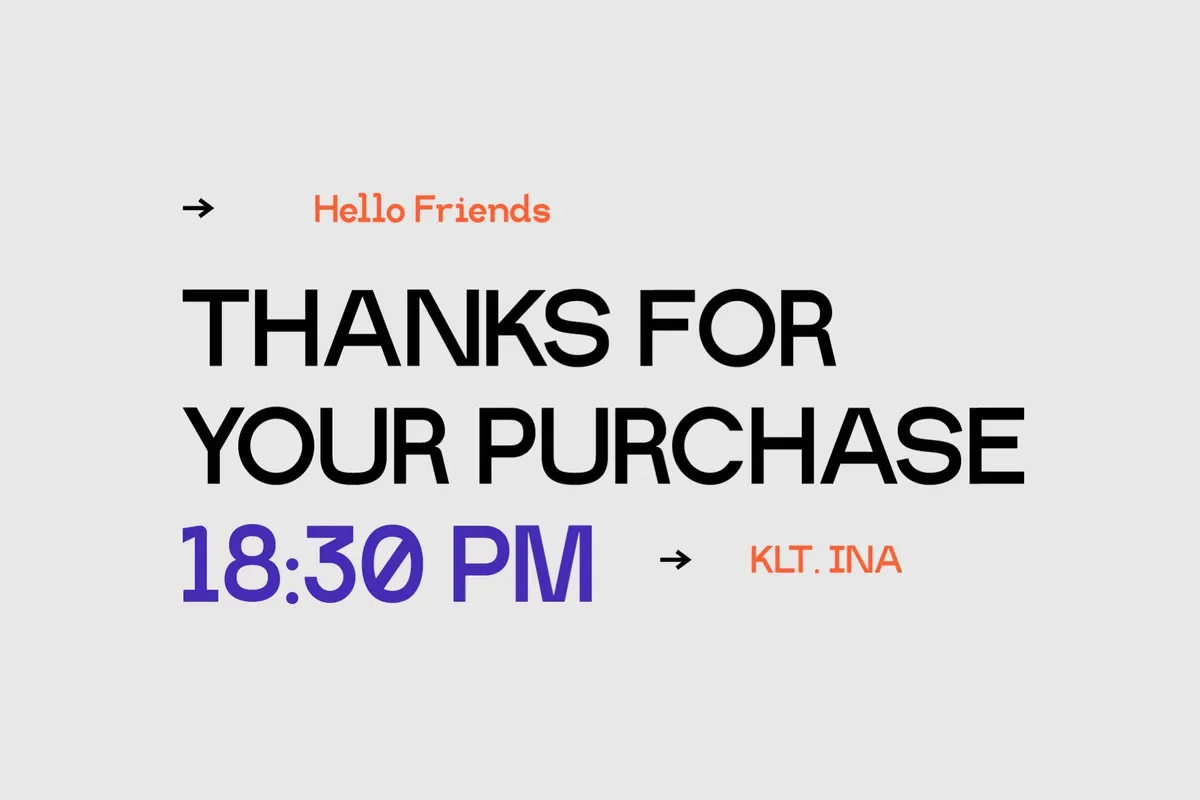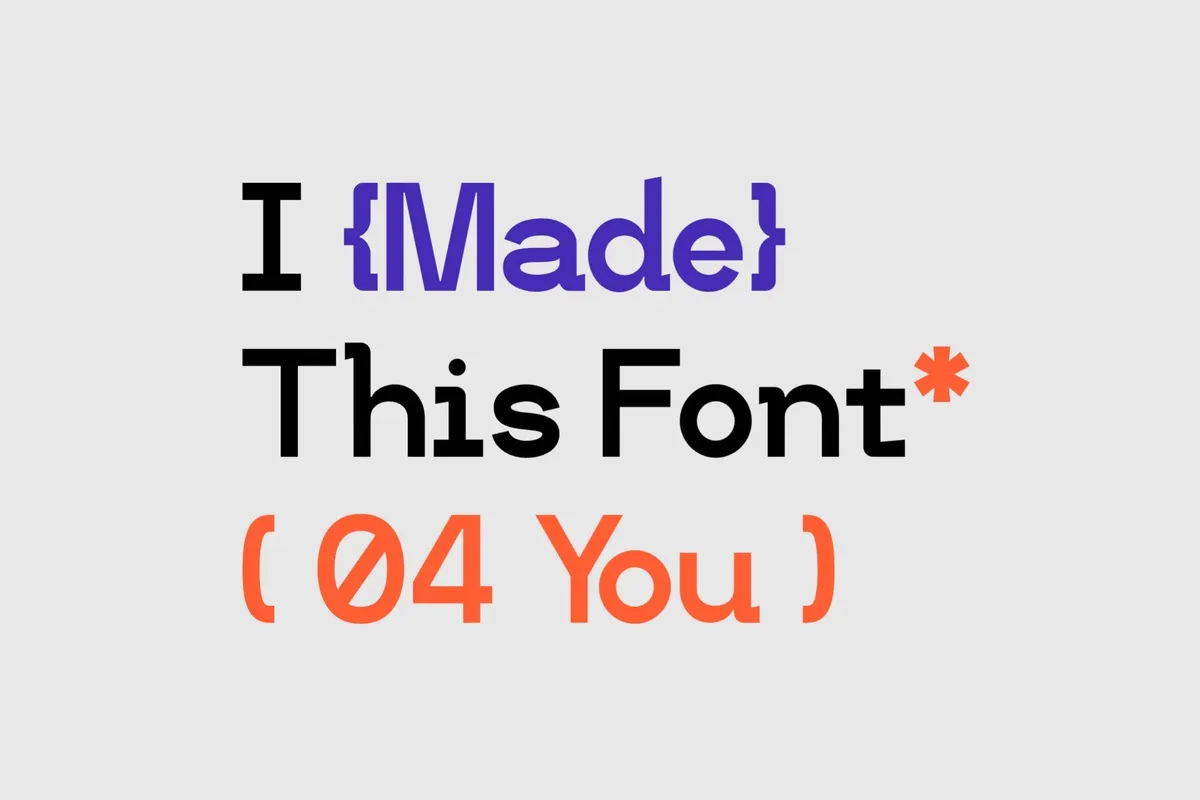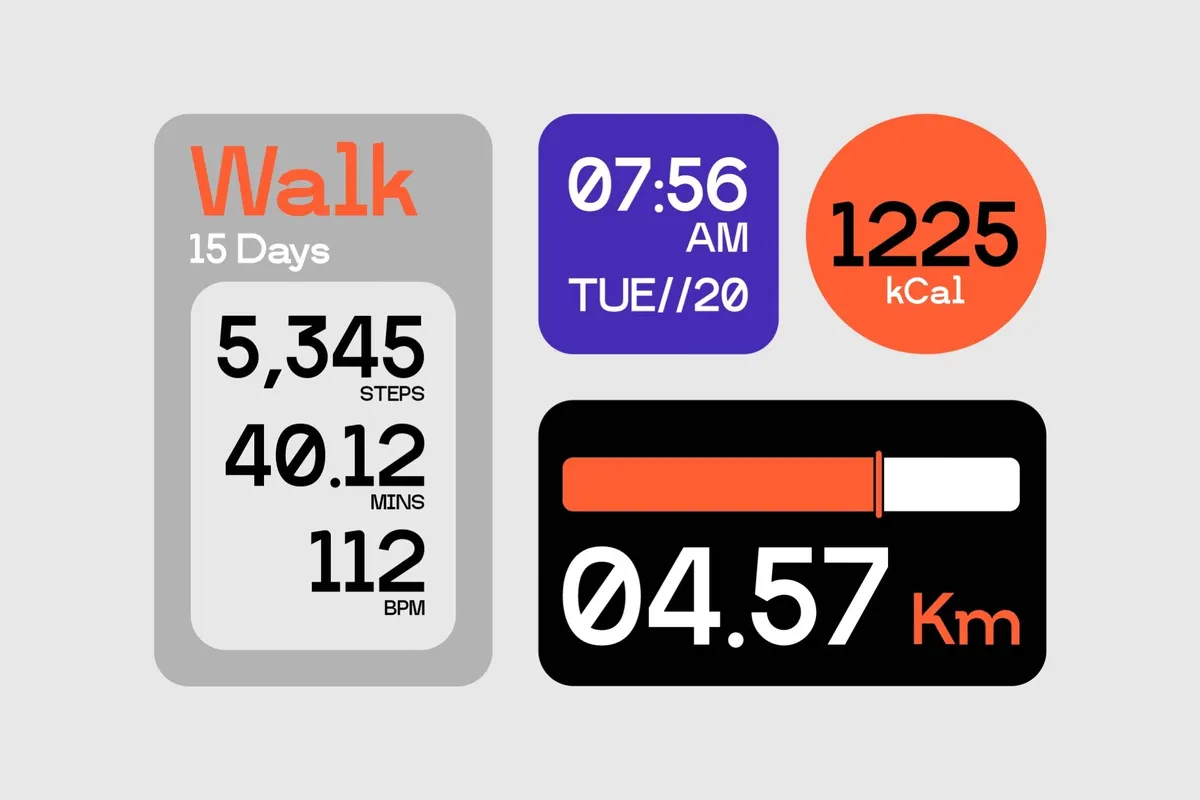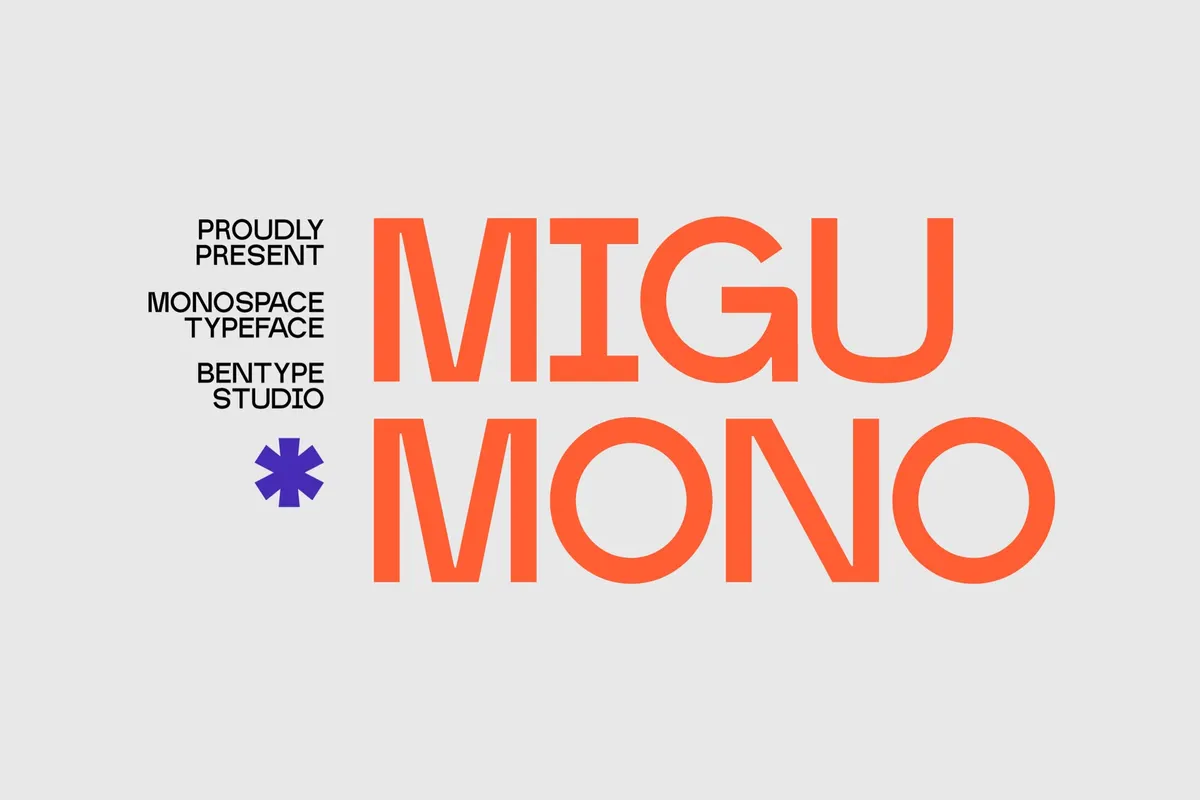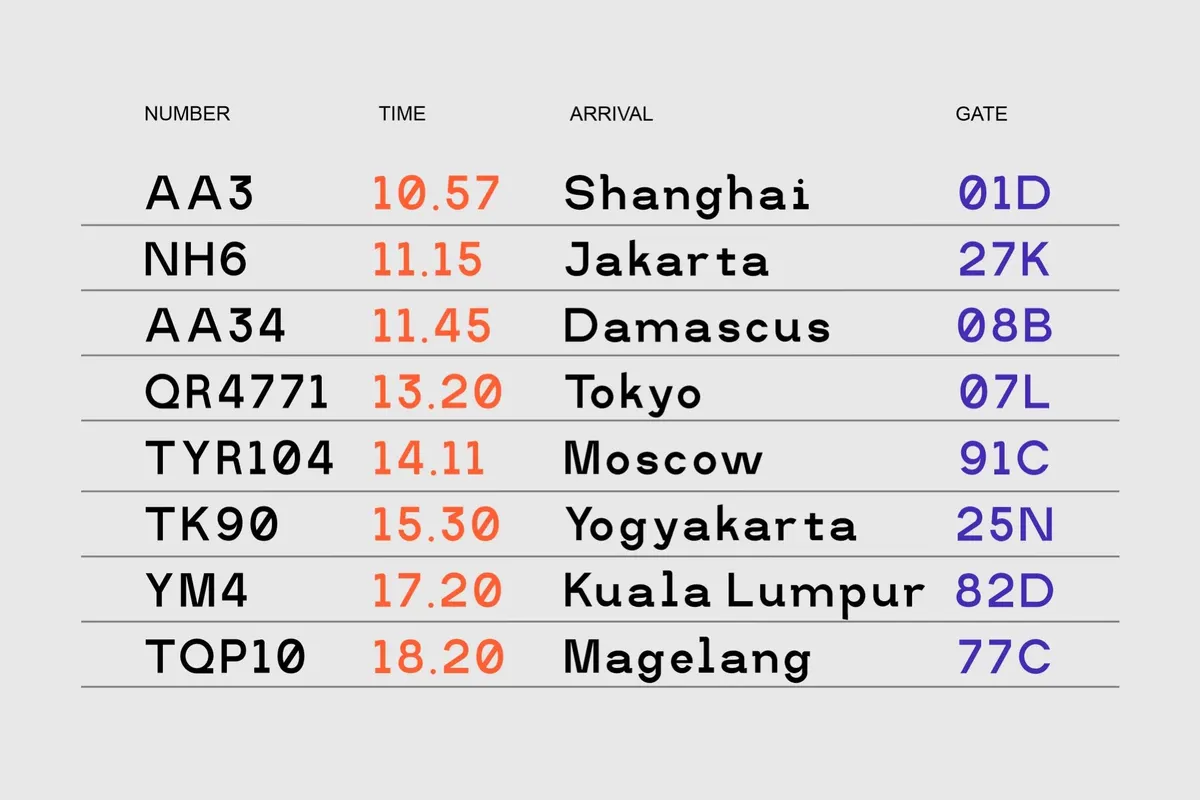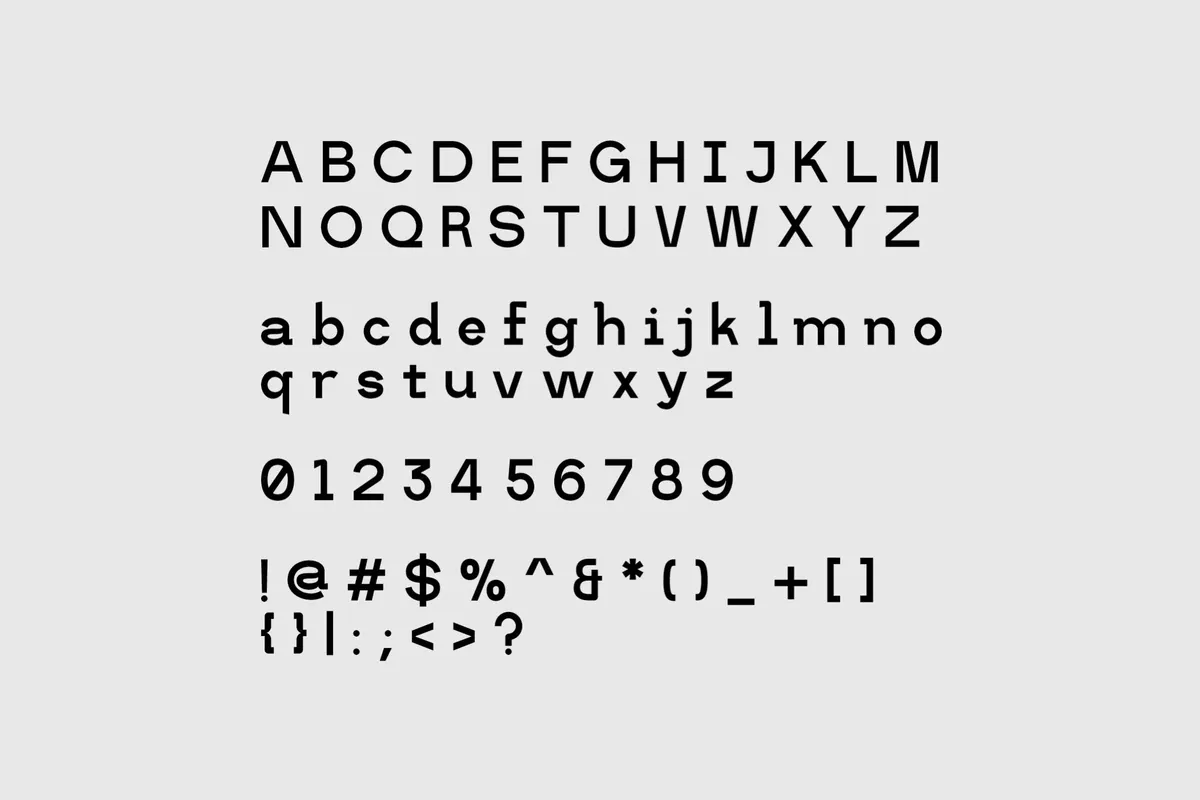
Migu Mono - Monospace Display Font
Migumono
Migu Mono borrows its rhythm from monospace and technical type systems: even stroke weight, a tight geometric construction, and a few unconventional joins where the strokes meet. The letterforms keep a condensed, technical read at display sizes, closer to a flight board or fitness tracker readout than a conventional headline face.
Use it for display headlines, UI numerals, dashboard and data displays, banners, posters, and branding that wants a technical edge.
- Uppercase & lowercase;
- Numerals, punctuation & symbols;